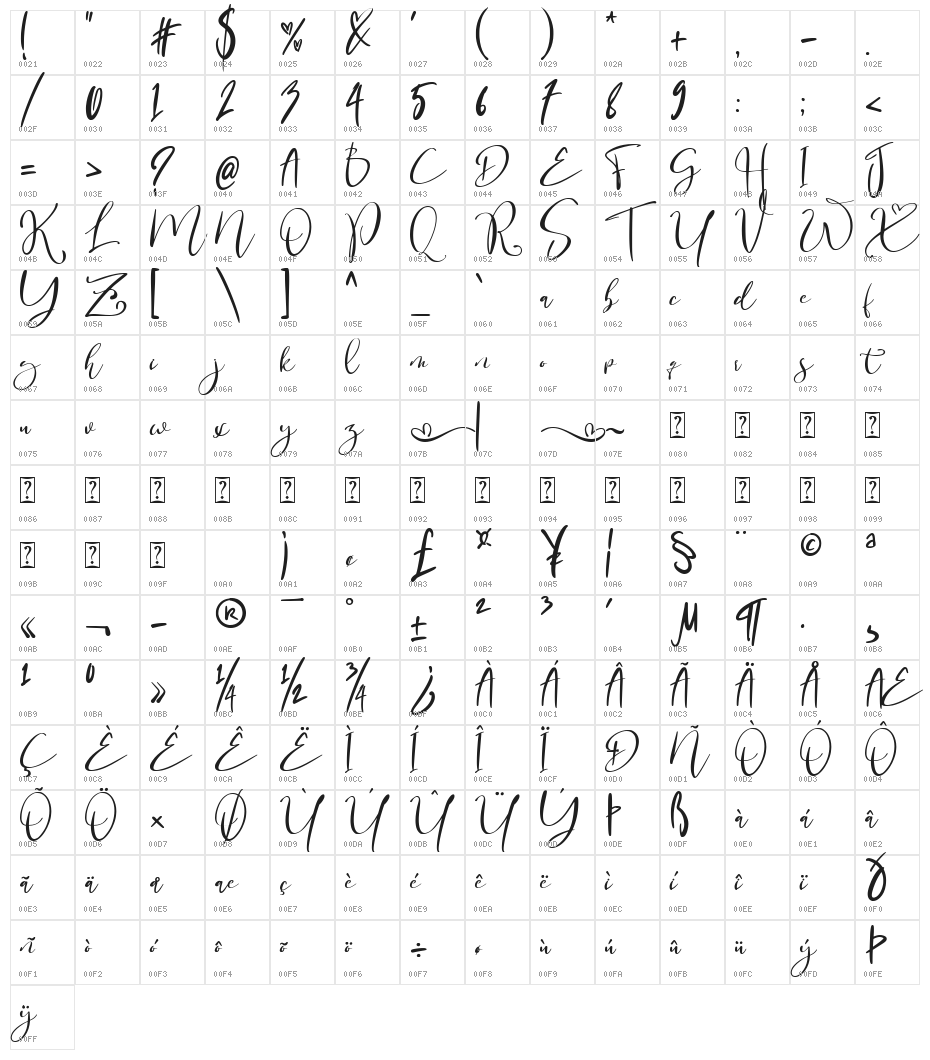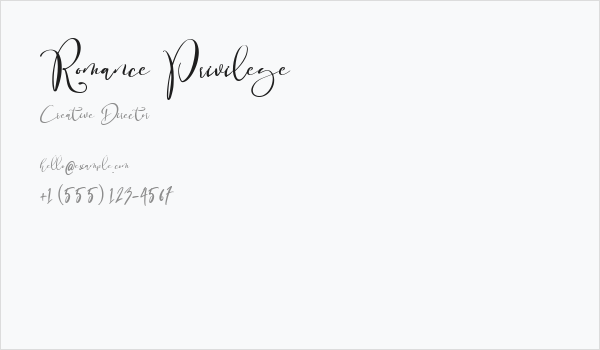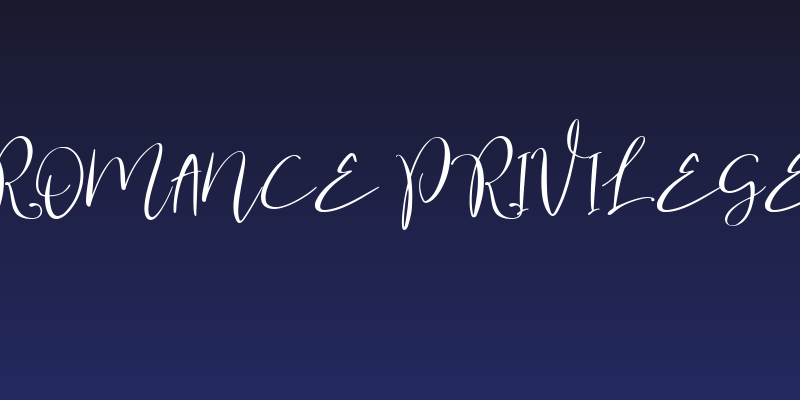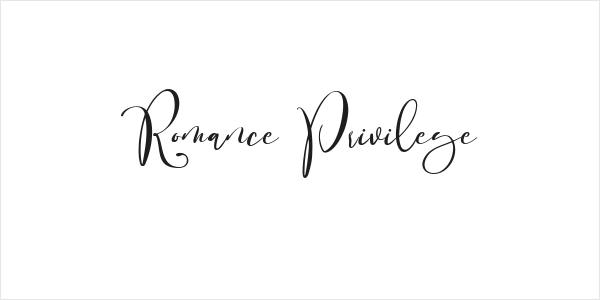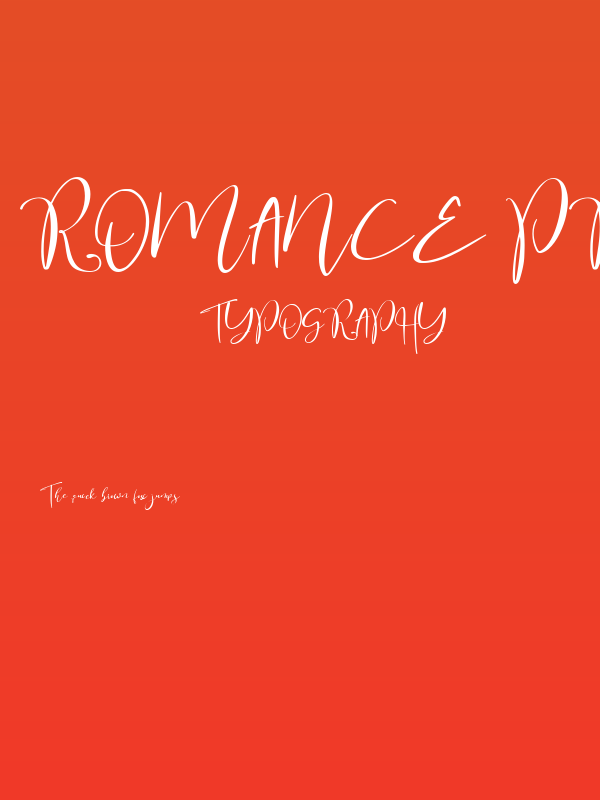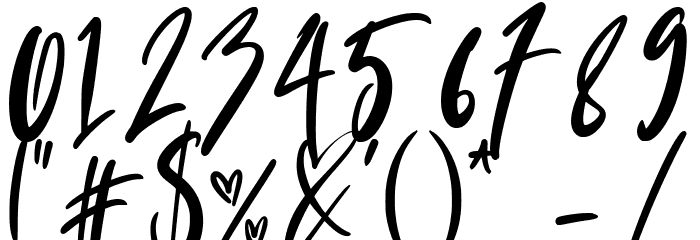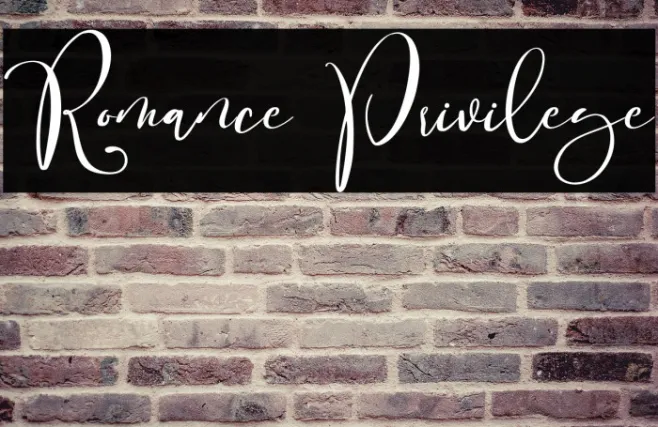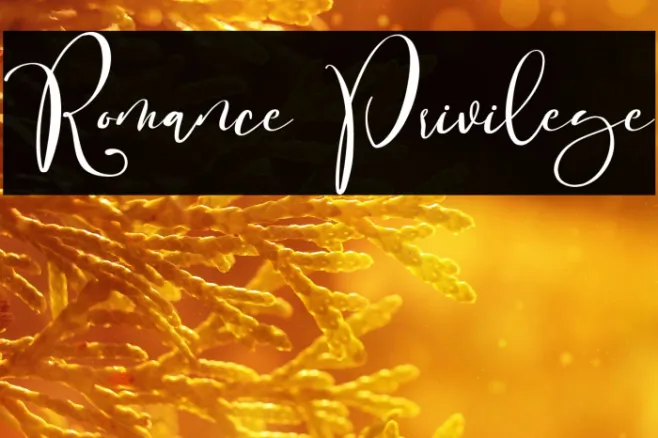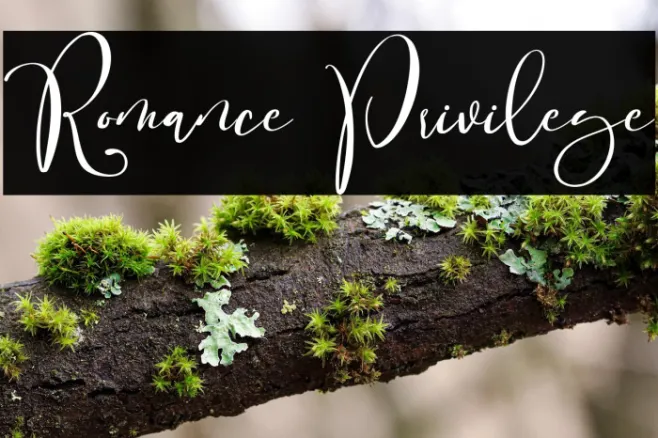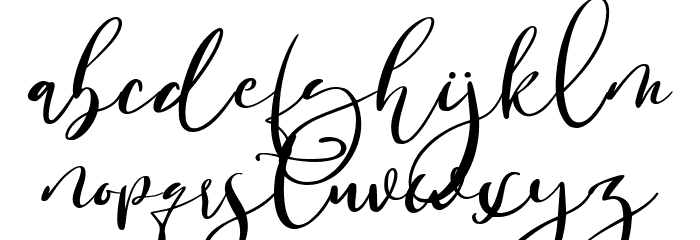
Romance Privilege Font
Romance Privilege Description
This font exudes elegance and charm with its flowing, cursive script style. The uppercase letters are tall and slender, featuring graceful loops and swashes that add a touch of sophistication. The lowercase letters maintain a consistent flow, with some characters like 'g' and 'y' having extended descenders that enhance the font's fluidity. Numbers are bold and slightly tilted, complementing the overall aesthetic. Special characters are creatively integrated, with symbols like the heart adding a playful element. The font's design is perfect for projects that require a personal and romantic touch.
| Overall Style | Romantic |
| Proposed Projects | Ideal for wedding invitations, greeting cards, branding, and romantic-themed designs. |